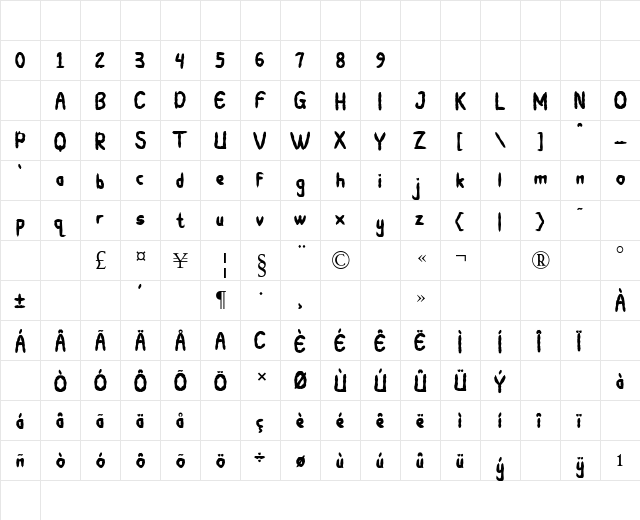
Twikle is a composed and adaptable typeface that performs quietly and consistently across a wide range of design contexts.
Pro Tip: Use Twikle in both headline and body roles to test its range before committing to a single application.